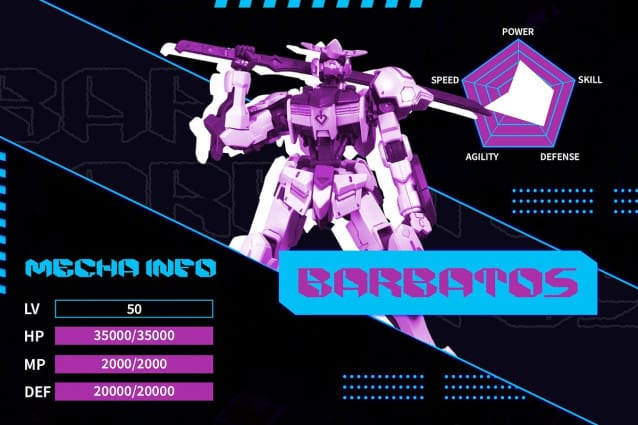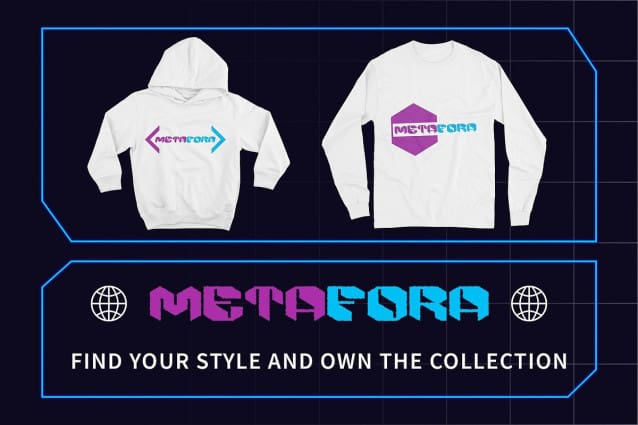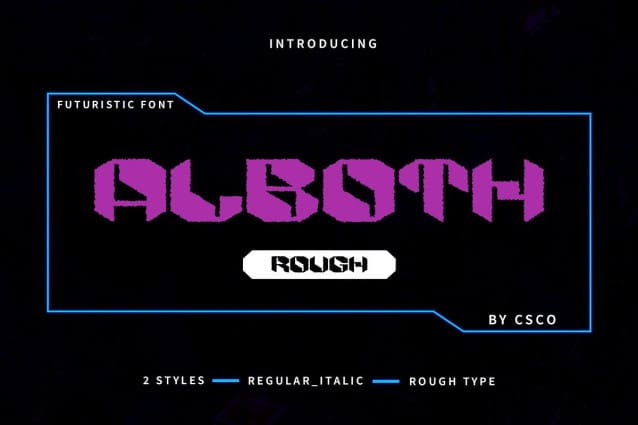
Alboth Rough Font
Alboth Rough Font: Embracing Futuristic Display Typography. Inspired by Tomorrow Alboth Rough draws inspiration from the future, infusing its design with elements that evoke visions of innovation and progress. Its forward-thinking aesthetic sets it apart in the world of display fonts.
Rugged Yet Refined Despite its futuristic inspiration, This font maintains a rugged charm with its rough texture effect. This juxtaposition of roughness and refinement adds character and uniqueness to any display project.
Tailored for Display Needs Crafted specifically for display purposes, This font excels in commanding attention and making a statement. Whether used in branding, advertising, or digital interfaces, its bold presence leaves a lasting impression.
Versatile Application Beyond its futuristic appeal, This font offers versatility in application. From sci-fi-themed designs to cutting-edge technology campaigns, its rough-edged style adds an element of intrigue and modernity.
Shaping the Future of Display Typography This font emerges as a beacon of innovation in display typography, with its blend of futuristic inspiration and rugged texture. Perfect for projects seeking to embrace the spirit of tomorrow, Alboth Rough sets the stage for bold and visionary designs. Step into the future with This font and redefine your display aesthetics.